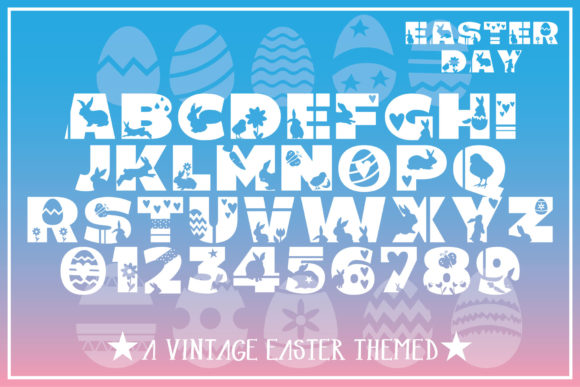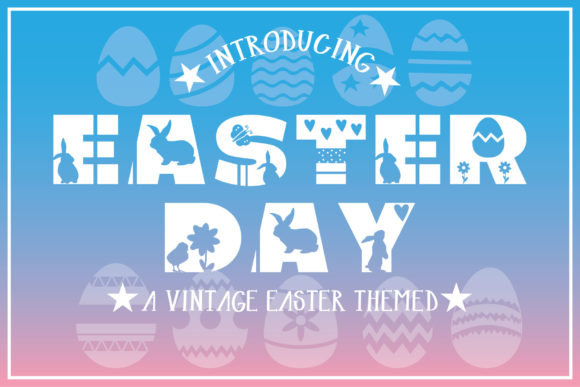
Easter Day Font: A Beautiful Display Font to Elevate Your Easter-Themed Projects
Easter Day is just around the corner, and with it comes the opportunity to get creative with Easter-themed projects. Whether you’re a designer, crafter, or simply someone who loves the holiday, having the right font can make all the difference. That’s where the Easter Day Font comes in – a stunning display font that’s specifically designed to add a touch of Easter magic to your projects.
What is Easter Day Font?
Easter Day Font is a beautiful display font that’s perfect for Easter-themed projects. This gorgeous font is designed to bring a sense of joy and celebration to your designs, making it ideal for a wide range of applications, from Easter cards and invitations to DIY crafts and social media graphics.
Key Features of Easter Day Font
- Easter Holiday Theme: The Easter Day Font is specifically designed with an Easter holiday theme, making it perfect for any Easter-themed project.
- Beautiful Display Font: This font is a stunning display font that’s sure to grab attention and add a touch of elegance to your designs.
- Versatile: The Easter Day Font can be used for a wide range of projects, from Easter cards and invitations to DIY crafts and social media graphics.
- Easter Cards and Invitations: Use the Easter Day Font to create beautiful Easter cards and invitations that are sure to impress.
- DIY Crafts: Add a touch of Easter magic to your DIY crafts, such as Easter egg decorations, Easter baskets, and more.
- Social Media Graphics: Use the Easter Day Font to create eye-catching social media graphics that will help you stand out from the crowd.
- Easter-themed Projects: Use the Easter Day Font to add a touch of elegance to any Easter-themed project, from Easter party decorations to Easter-themed blog posts.
Why Choose Easter Day Font?
There are many fonts to choose from, but the Easter Day Font stands out from the rest. Here are a few reasons why:
- Unique Design: The Easter Day Font has a unique design that’s specifically tailored to the Easter holiday.
- High-Quality: This font is of high quality, making it perfect for professional designers and crafters.
- Easy to Read: The Easter Day Font is easy to read, making it perfect for use in a wide range of projects.
Tips and Tricks for Using Easter Day Font
Here are a few tips and tricks for using the Easter Day Font:
- Experiment with Different Colors: The Easter Day Font looks great in a variety of colors, so don’t be afraid to experiment and find the perfect color for your project.
- Use it with Other Easter-themed Elements: Use the Easter Day Font with other Easter-themed elements, such as Easter eggs, bunnies, and flowers, to create a cohesive look.
- Try it in Different Sizes: The Easter Day Font looks great in a variety of sizes, so try it out in different sizes to see what works best for your project.
The Easter Day Font is a beautiful display font that’s perfect for Easter-themed projects. With its unique design, high-quality, and ease of use, it’s a must-have for designers and crafters who want to add a touch of Easter magic to their designs. Whether you’re creating Easter cards, DIY crafts, or social media graphics, the Easter Day Font is sure to elevate your projects and make them stand out from the crowd.